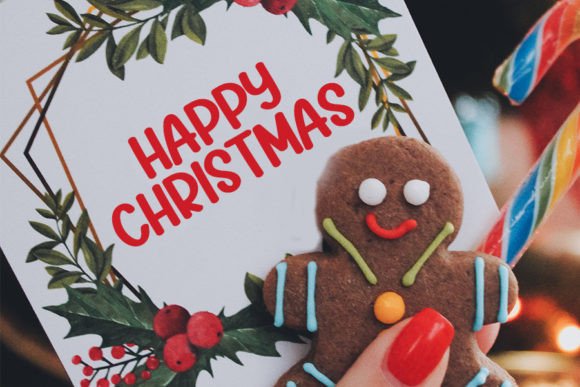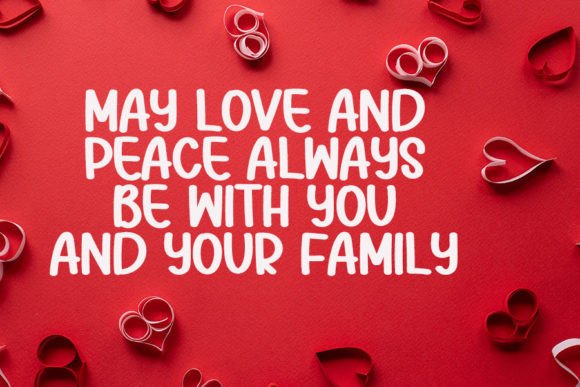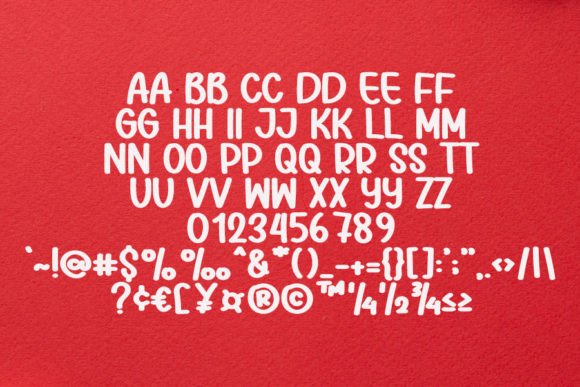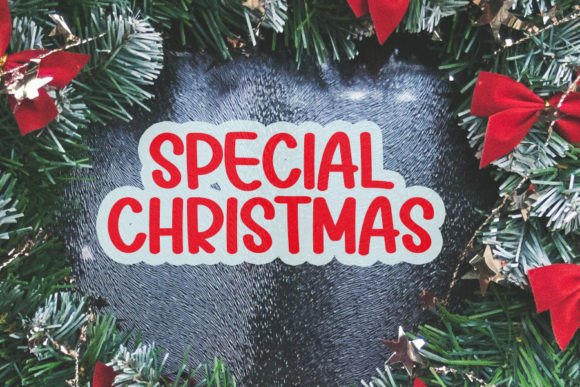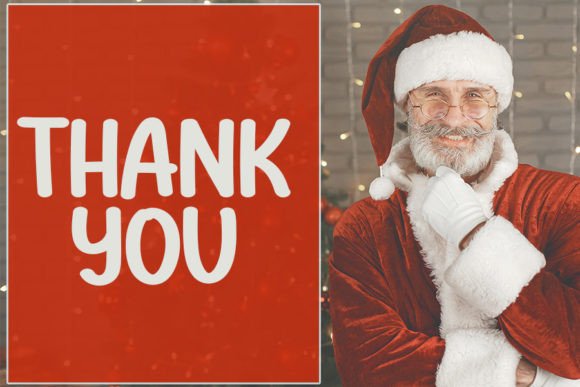
Santa Days Font
Celebrate the Season with Santa Days Handwritten Font
The Santa Days Handwritten Font is a stylish and festive script font that blends classic calligraphy with a modern, contemporary atmosphere. Its flowing curves and polished design bring elegance to any creative project—especially those with a seasonal or holiday theme.
Perfect for Holiday Branding, Invitations, and Cards
Whether you’re designing Christmas cards, holiday branding, event invitations, or seasonal packaging, Santa Days adds a sophisticated, personal touch. It’s also a fantastic option for winter promotions, gift tags, social media graphics, and New Year’s printables.
While it evokes festive warmth, the clean structure and timeless style make it versatile enough for use year-round in branding, logos, or elegant design layouts.
A Script Font with Classic Influence and Modern Flair
What makes the Santa Days Handwritten Font stand out is its balance of timeless calligraphic elements with a trendy, easy-to-read design. Each character is carefully drawn with smooth, flowing lines that give the font a natural, handwritten charm.
At the same time, the polished strokes and consistent letterforms ensure the font maintains a professional, high-end look—perfect for both casual and formal design contexts.
Elegant in Print and Digital Formats Alike
Santa Days looks beautiful across both print and digital media. From holiday menus and eCommerce banners to branded packaging and greeting card designs, this font scales well at any size while retaining its legibility and style.
Pair it with minimalist serif or sans-serif fonts to create contrast and highlight its graceful curves. You can also use Santa Days as the main script in your layout or as a decorative accent to add a warm, personal feel.
Why Choose Santa Days Handwritten Font?
Here’s why designers love using Santa Days:
• Elegant handwritten style inspired by classic calligraphy
• Perfect for Christmas, winter holidays, and seasonal events
• Stylish and readable at all sizes
• Great for digital and print designs alike
• Adds festive charm and sophistication to any project
Make Every Holiday Design Feel Magical
In conclusion, the Santa Days Handwritten Font is the perfect blend of elegance and festivity. Whether you’re creating a warm holiday greeting or building a winter brand identity, this font brings grace, personality, and timeless beauty to your work.
Let Santa Days be your go-to script for all things joyful and refined. If you’re looking to elevate your seasonal designs with a handcrafted yet polished look, Santa Days is the font for you.